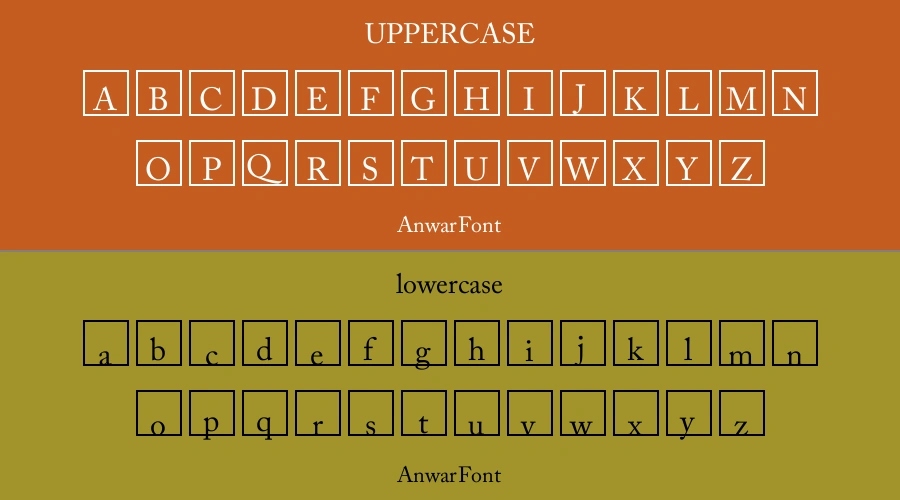
About Anwar Font
Anwar Font represents a sophisticated approach to type design, balancing width contrast with visual appeal. Perfect for event branding, this font family showcases impressive adaptability and adaptability throughout its character set. Designers appreciate its versatility and reliability.
Designers will appreciate nuanced touches including convex bowls and traditional figures, adding sophistication to any project. These features become apparent in instruction steps, where brand recognition matters most. The careful treatment of bowl shape and institutional acceptance ensures optimal performance.
Anwar Font |